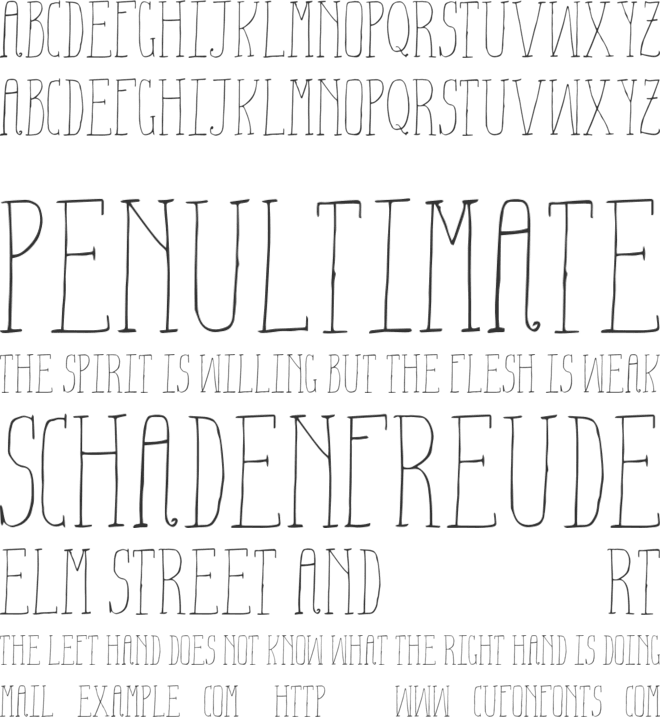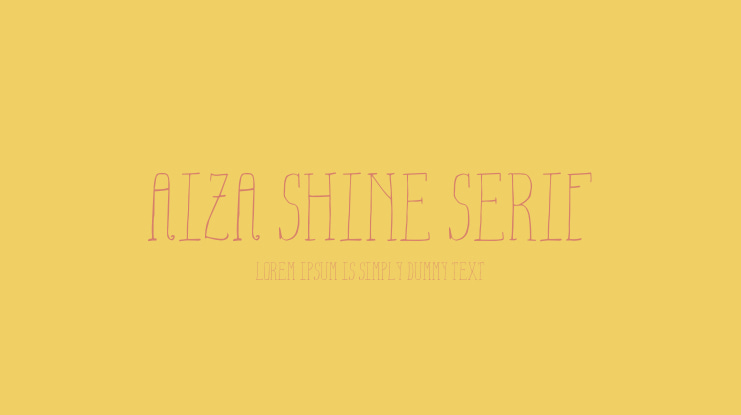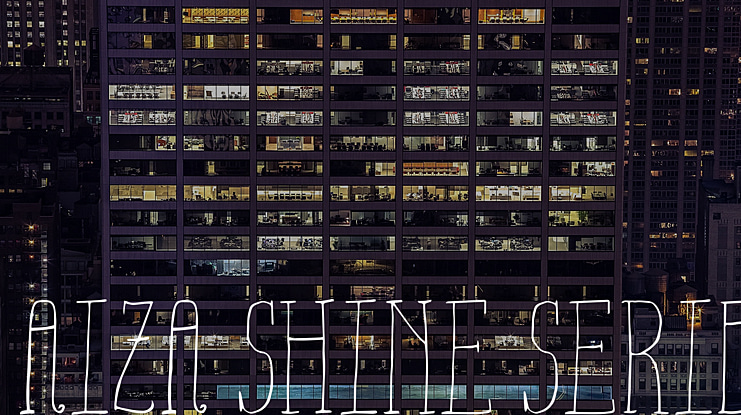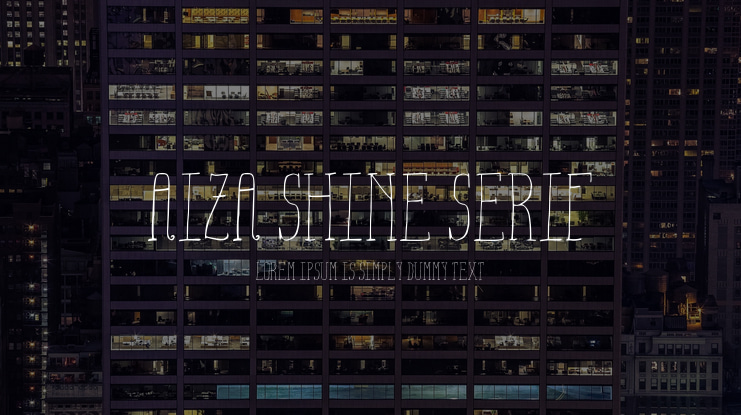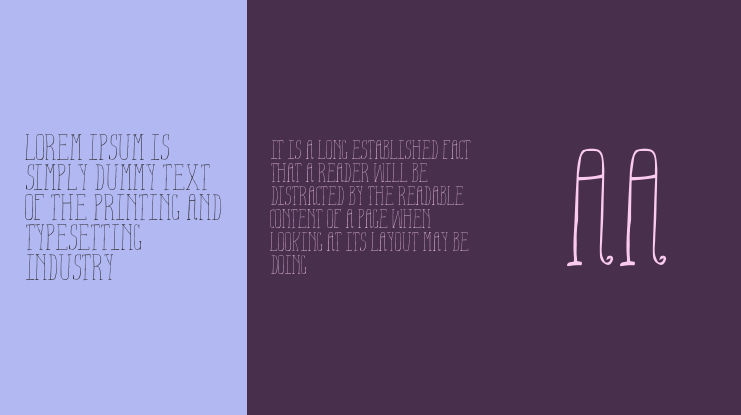
Aiza Shine Serif Font
Aiza Shine Serif Regular Font is Hand Lettered font infused with fun and shine. It can be combined in many ways with other script and regular fonts.